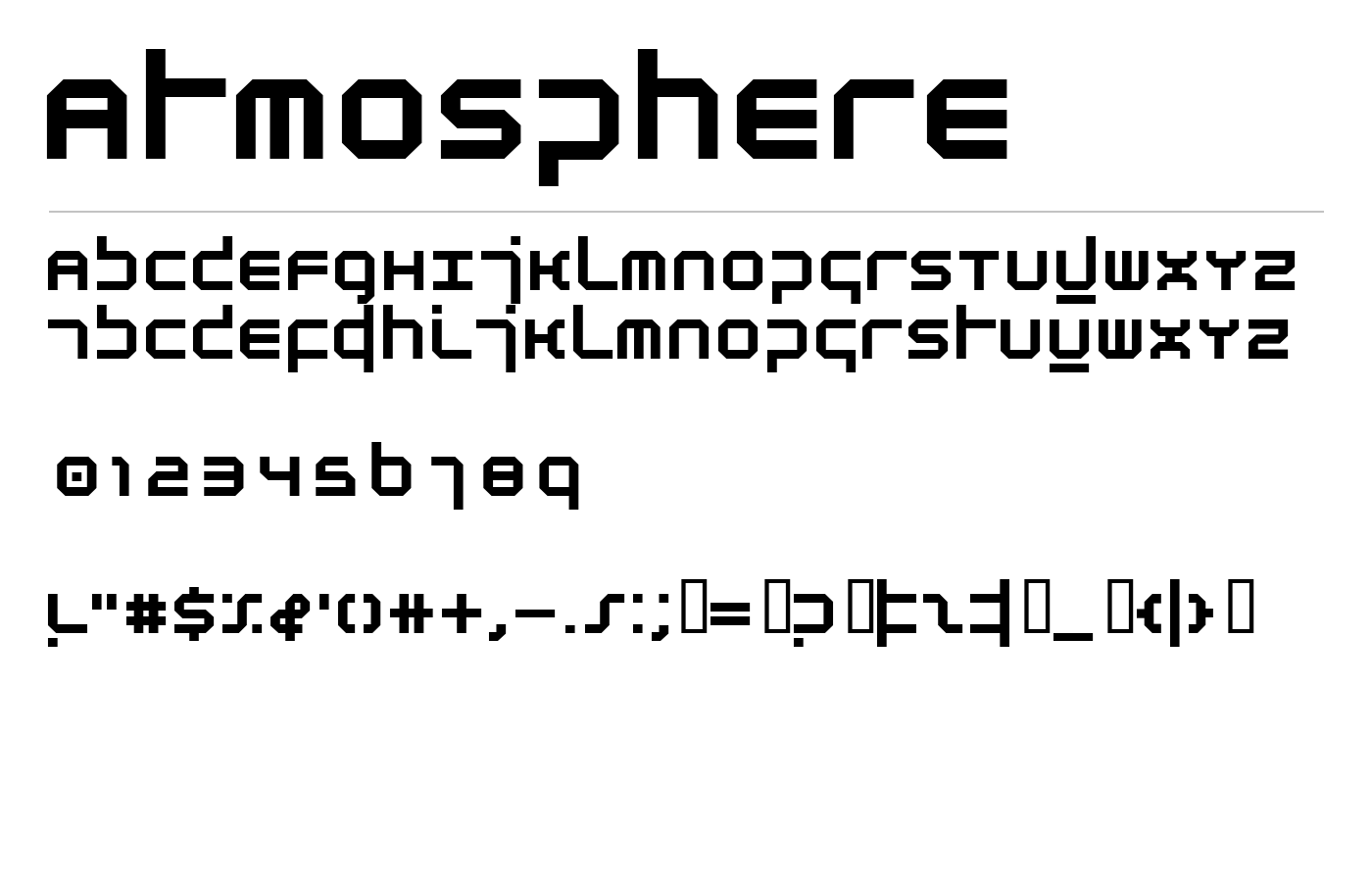
Atmosphere is a futuristic sans serif font featuring a unique geometric design with sharp, angular edges and a consistent medium weight that creates a tech-inspired, modern feel. Its compact letterforms, squared-off curves, and uniform stroke contrast give it a striking, digital appearance ideal for technology branding, gaming, or sci-fi projects. This font works best for headlines, logos, and creative displays where a bold, innovative aesthetic is desired.
Atmosphere Font